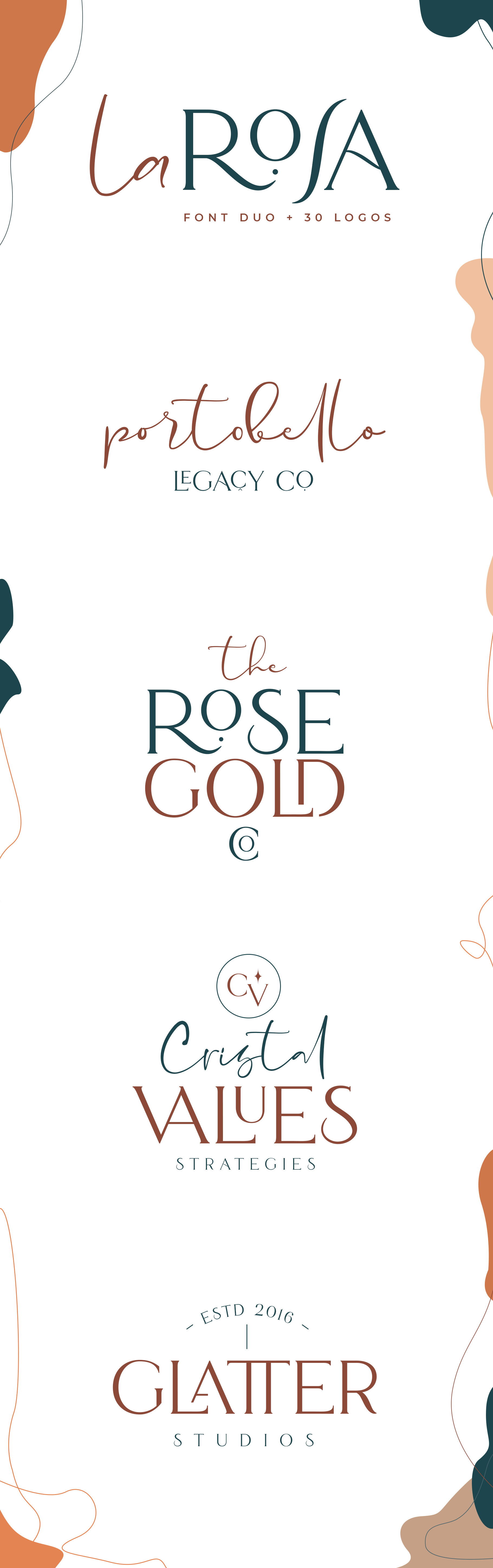
La Rosa Font Duo//Chic Logos
La Rosa Font Duo is a ligature font pair with 30 amazing chic logo templates. With this open-type font duo, you can explore your creativity in an unlimited way. To recreate your brand all you need is mix and match from the La Rosa font duo. This font duo is full of stylish ligatures, so that your writing with La Rosa can stand out. Oh, the darling font has 30 free logos and those are fully editable with Adobe Photoshop or Adobe Illustrator (PSD, Ai, and EPS).
- Font Features:
- Accurate kerning for all serif family
- Amazing ligatures to look natural in script font
- Alternative characters for script lowercase alphabets
- Multilingual Support for Both Scrip and Serif (àáâäãåā æ ç èéêëē îïíīì ñ ôöòóøõ ûüùu ÿ ý ỳ ŷ þ œ)